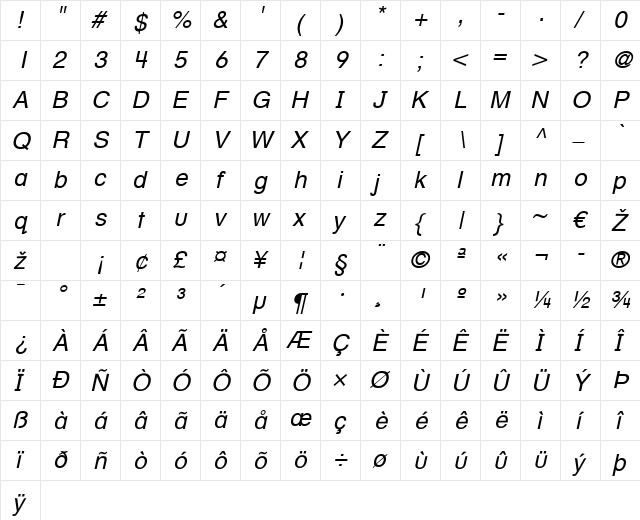
HelveticaTextbook LT Roman Italic
Design Context for HelveticaTextbook LT Roman Typeface
HelveticaTextbook LT Roman offers clean, dependable letterforms without strong stylistic allegiance, making it a practical choice for designers who need flexibility. The slanted form adds forward momentum and visual energy. Its slender proportions lend an understated elegance to any composition.
Pro Tip: Use HelveticaTextbook LT Roman for emphasis, pull quotes, and subheadings where its slanted energy can add rhythm to the layout.